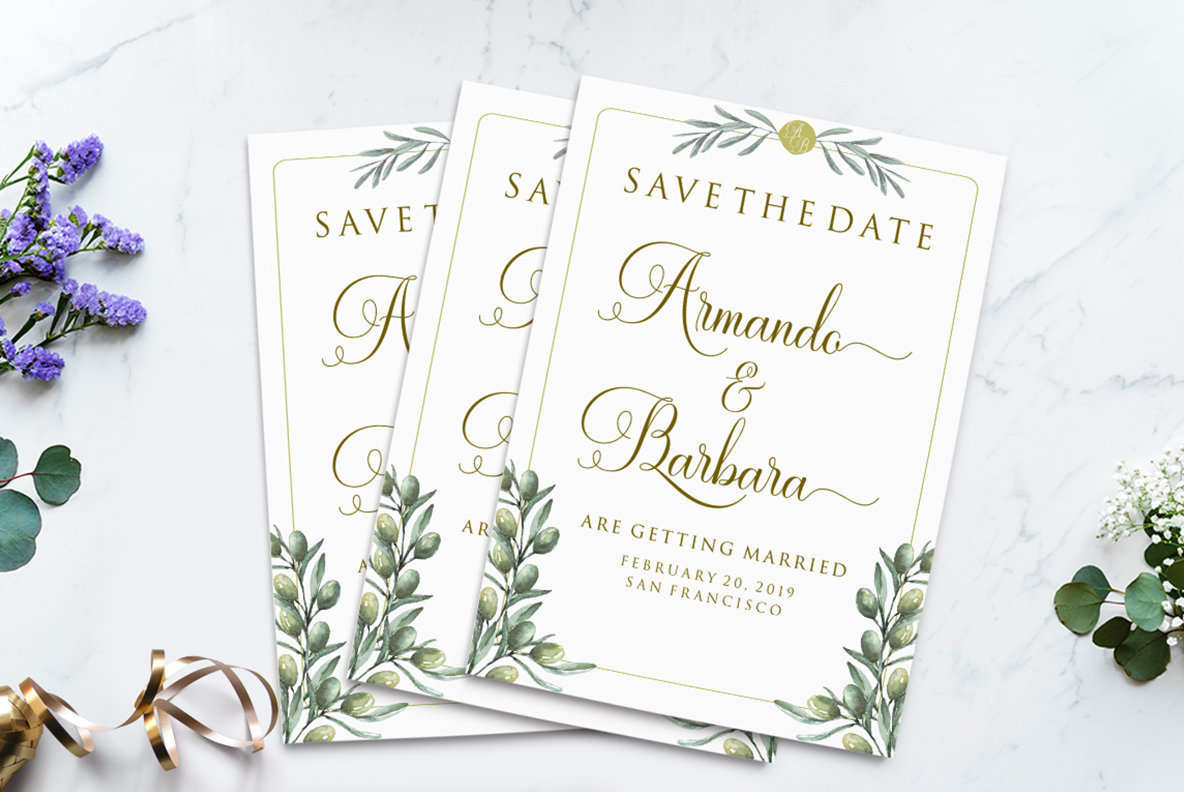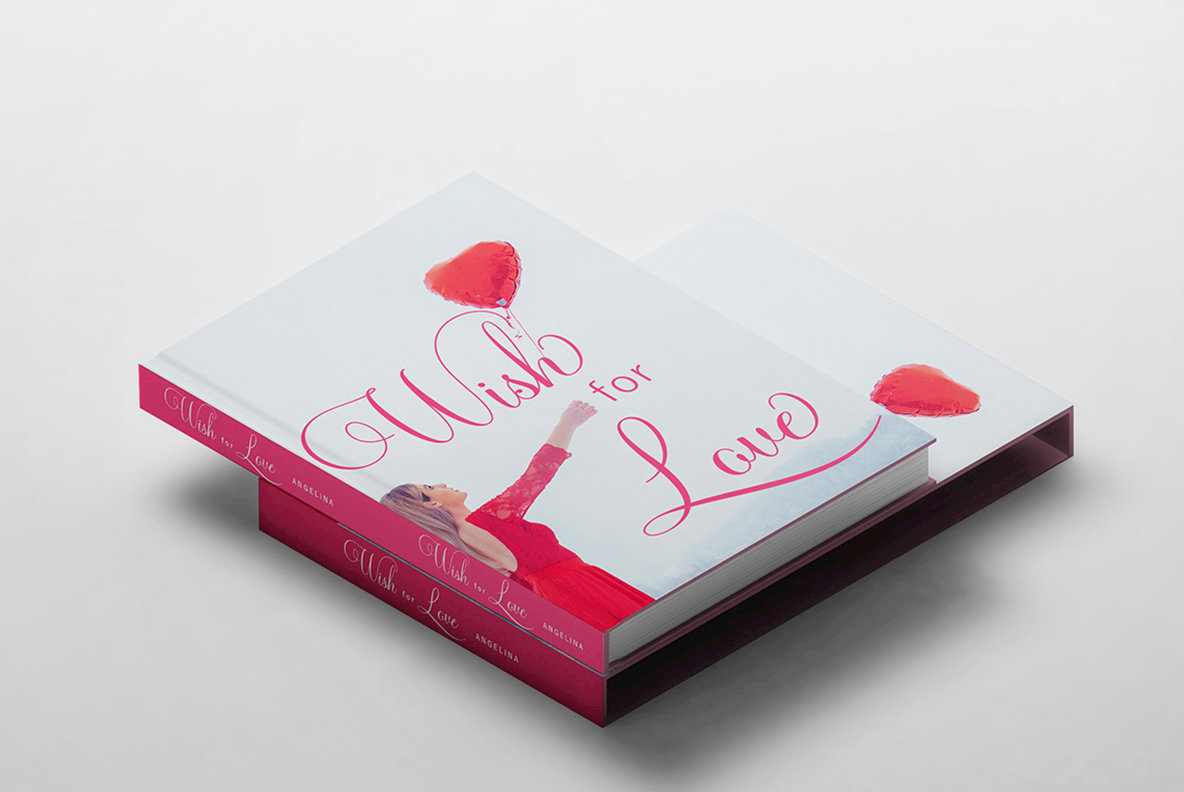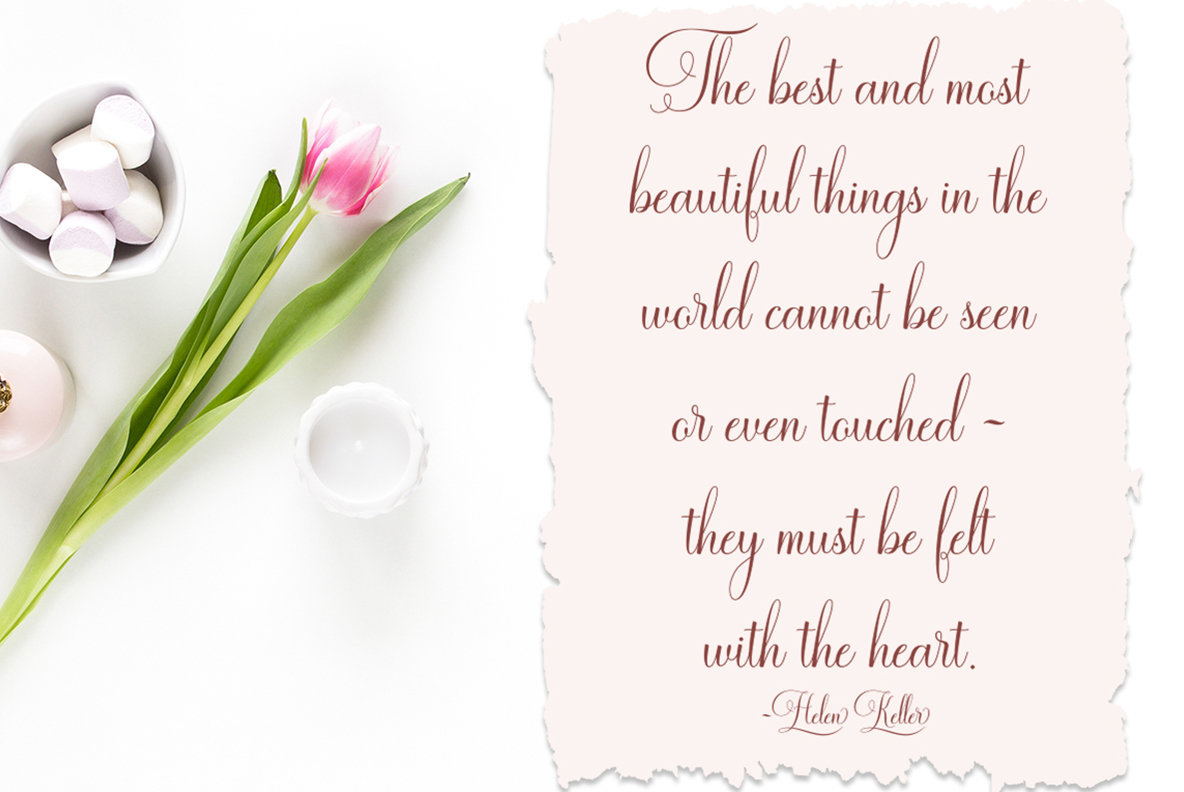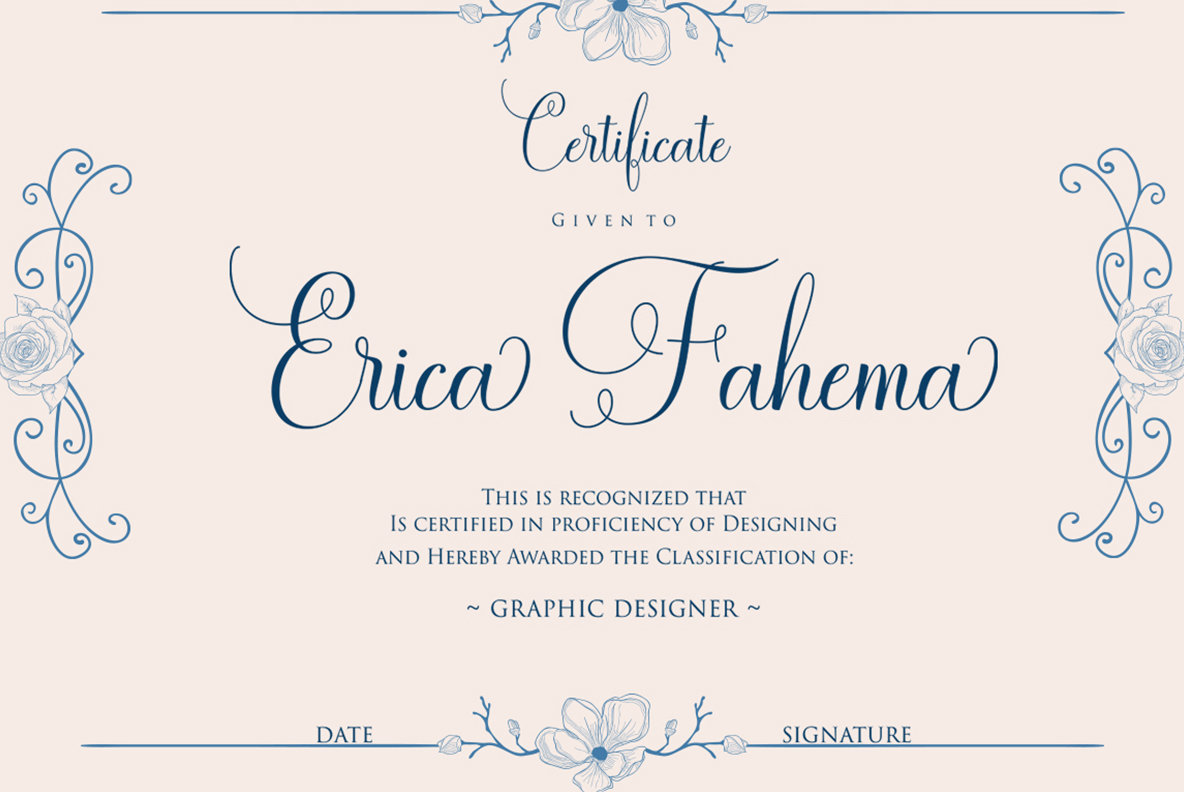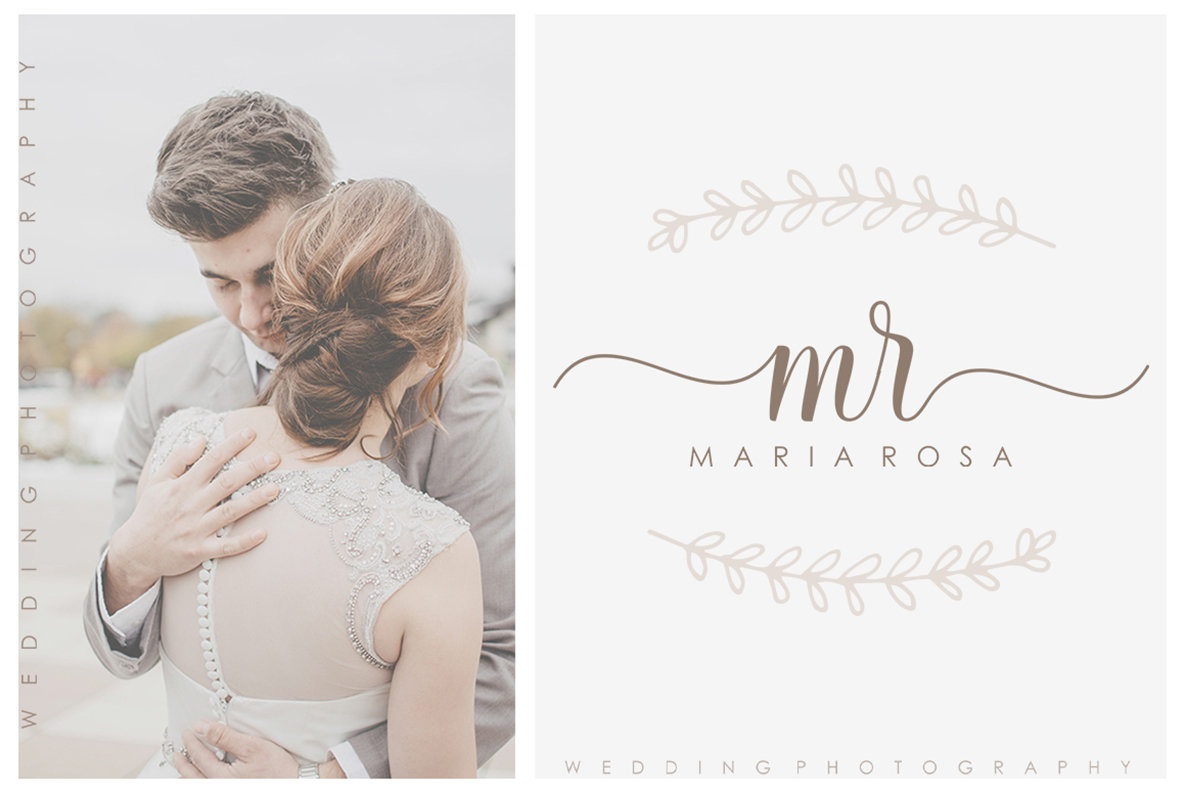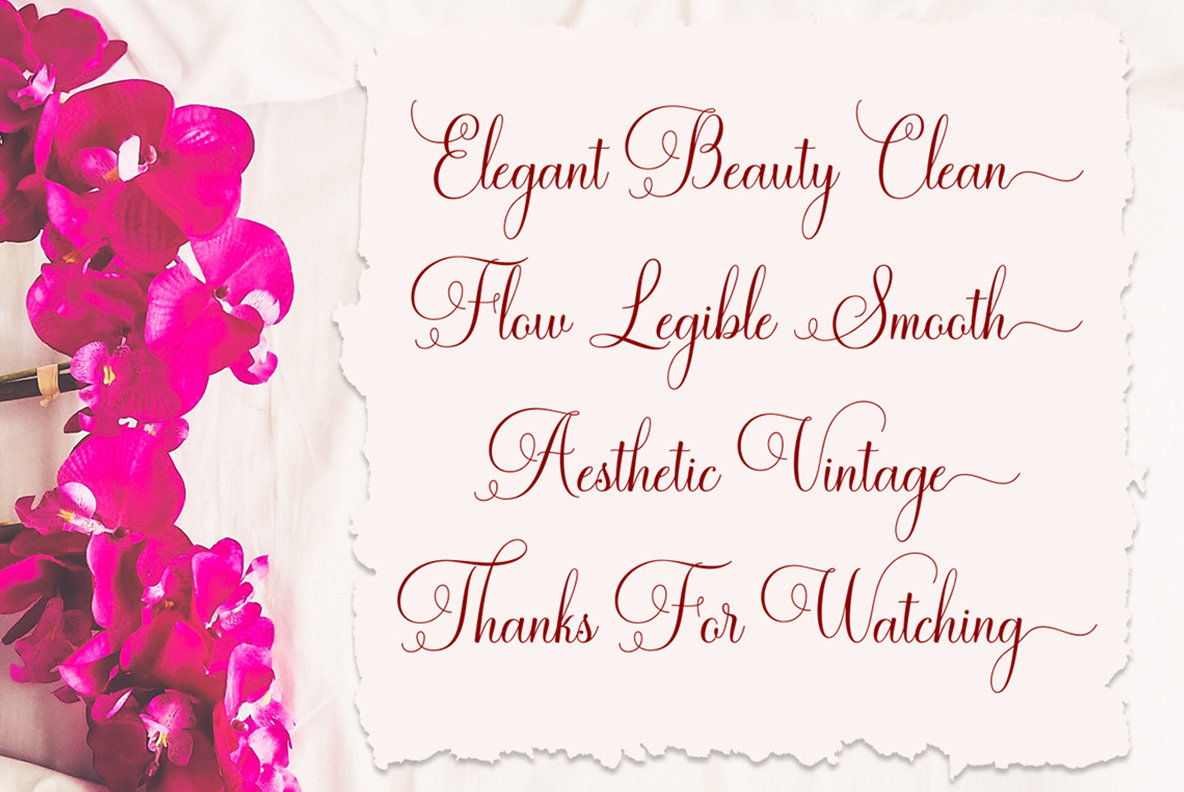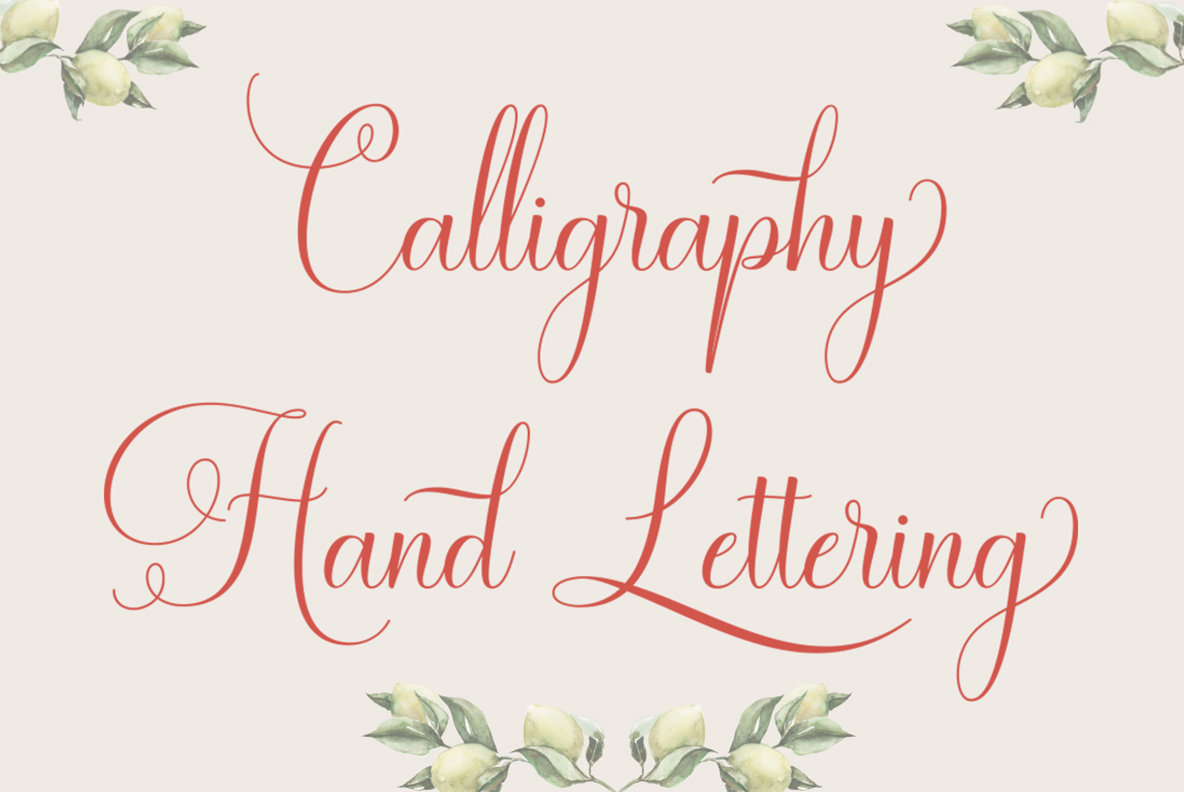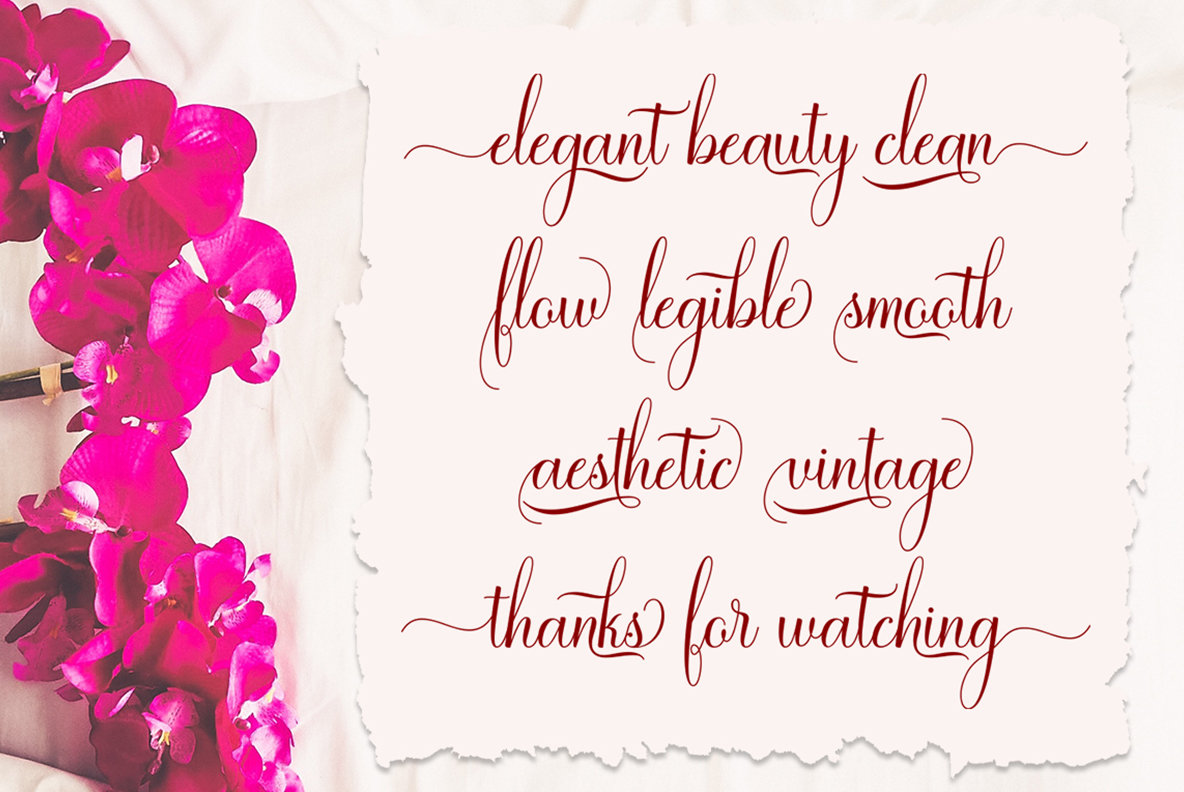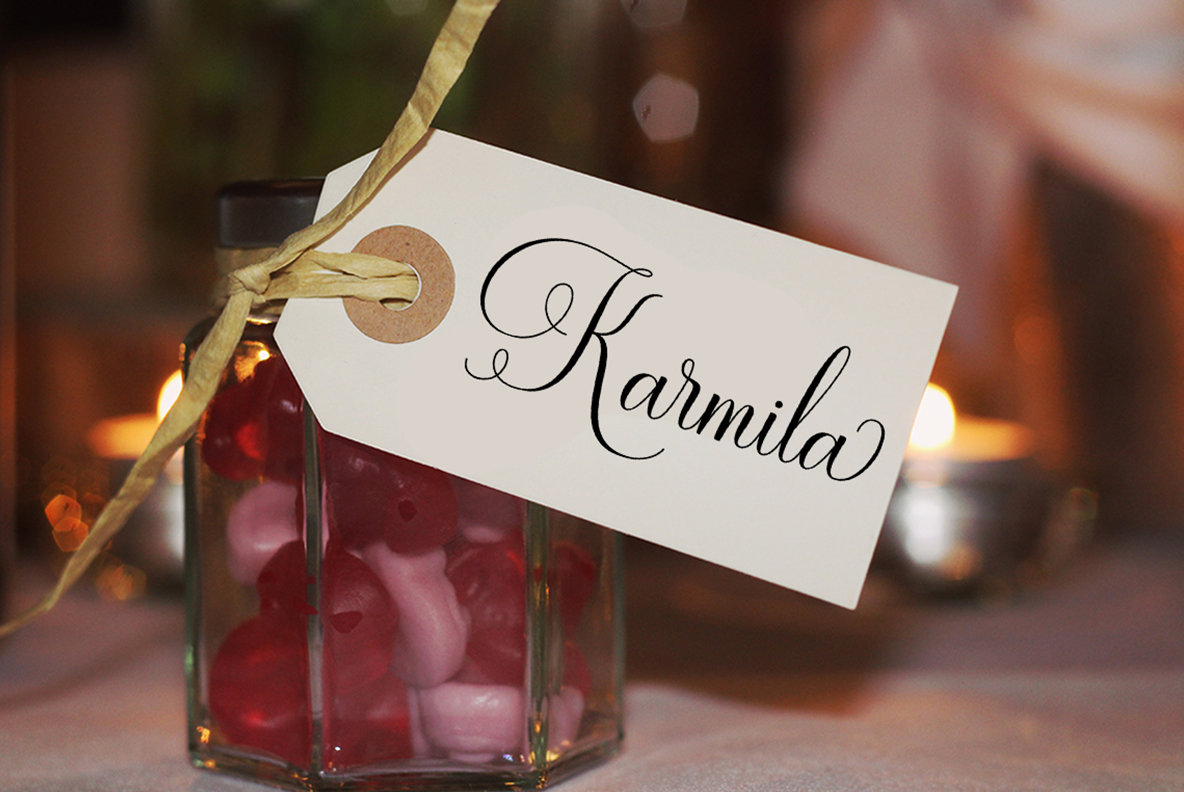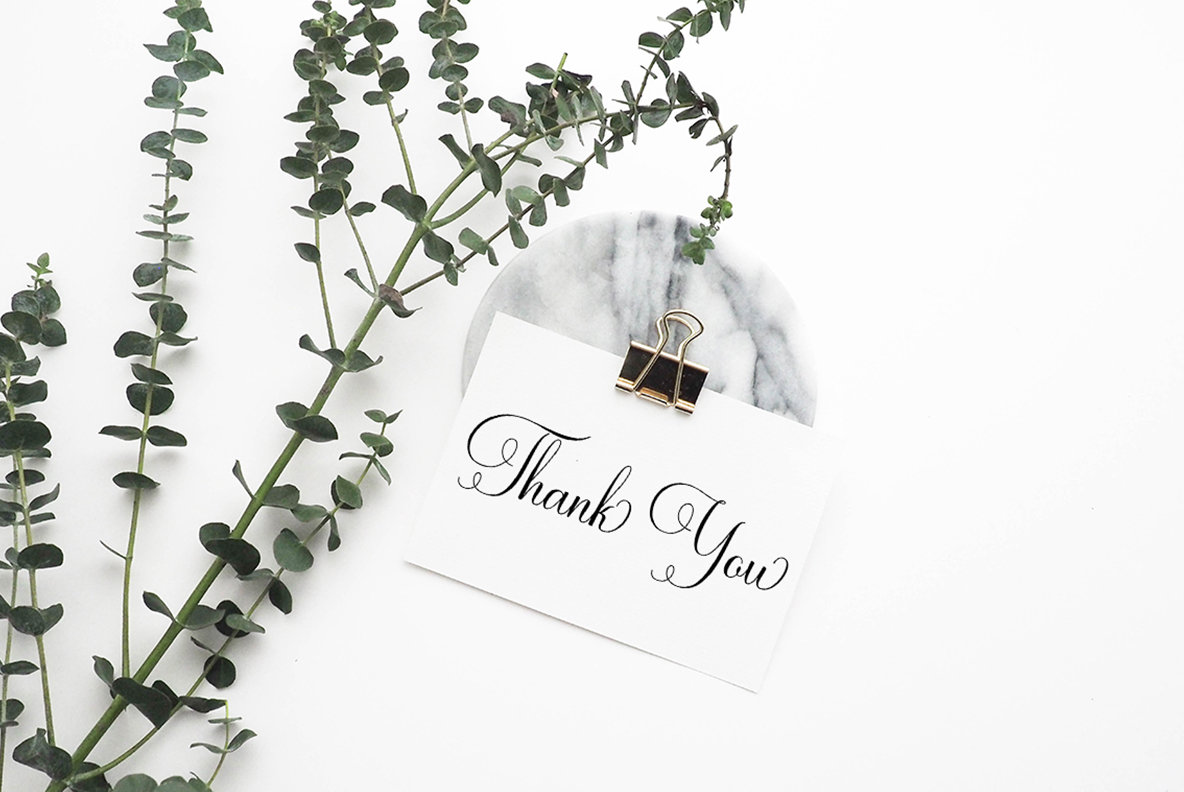
Ramolina Font
Ramolina Script
Ramolina, conceived as an exquisite calligraphy script, seamlessly blends copperplate calligraphy with modern handlettering. Its graceful charm offers a blend of elegance and sophistication, making it a highly readable typeface that carries a feminine allure. The classic and refined style of Ramolina is optimal for formal applications, such as invitations, labels, certificates, and logos. Features:Ramolina: Elegant Calligraphy Script Font